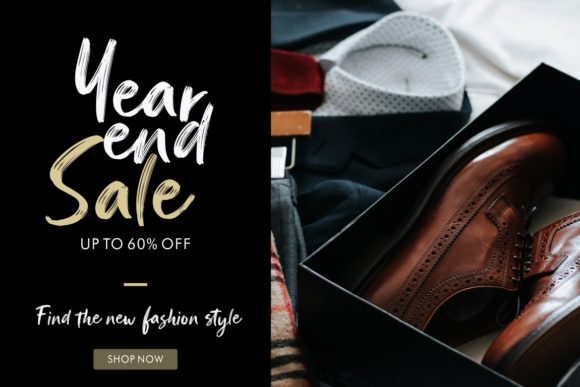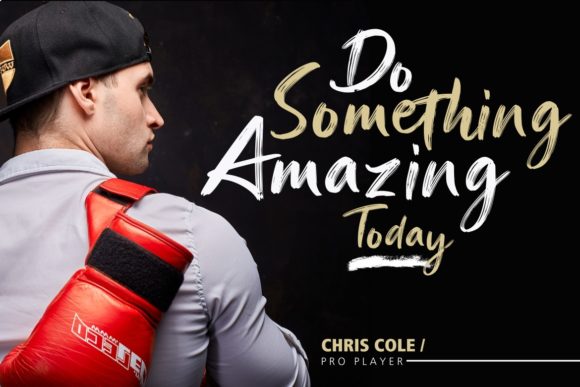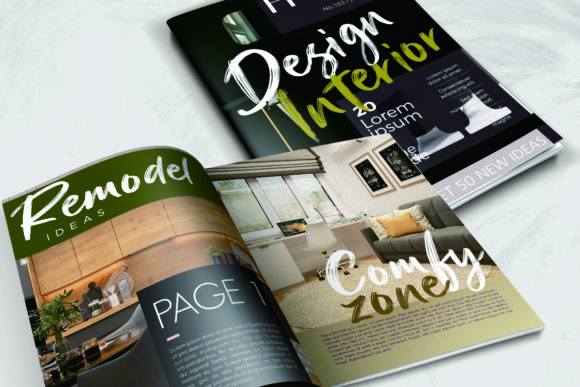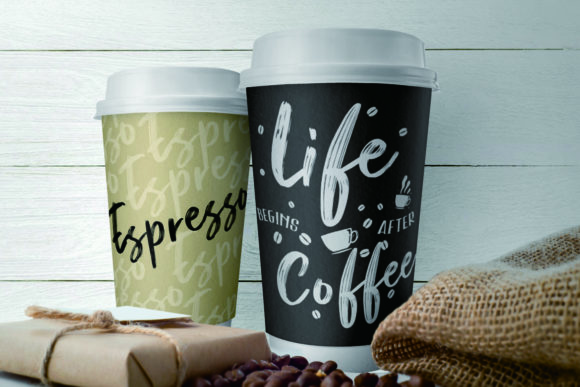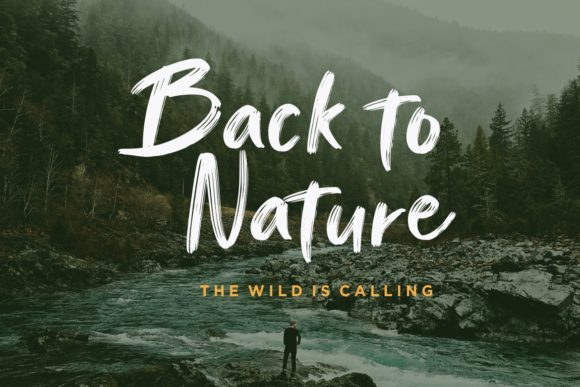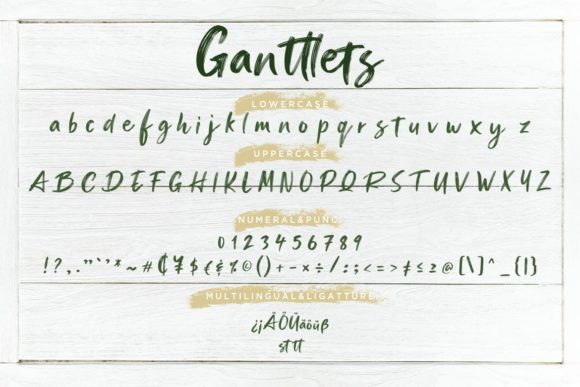
Ganttlets Font: The Ultimate Game-Changer for Designers and Crafters
In the world of design, fonts play a crucial role in making a project stand out from the crowd. With thousands of fonts available, it can be overwhelming to find the perfect one that captures the essence of your design. However, if you’re looking for a unique and eye-catching script, look no further than Ganttlets Font. Ganttlets is a one-of-a-kind script that will make any design project stand out from the crowd.
What is Ganttlets Font?
Ganttlets Font is a distinctive script font that is designed to add a touch of elegance and sophistication to any design project. With its flowing lines and intricate details, Ganttlets is perfect for designers and crafters who want to create something truly unique. Whether you’re working on a logo, branding project, or craft project, Ganttlets Font is sure to make a statement.
Key Features of Ganttlets Font
- Unique and Handwritten Style: Ganttlets Font boasts a one-of-a-kind, handwritten style that is sure to capture the attention of your audience.
- Elegant and Sophisticated: With its flowing lines and intricate details, Ganttlets Font adds a touch of elegance and sophistication to any design project.
- Highly Versatile: Ganttlets Font can be used for a wide range of design projects, from logos and branding to craft projects and more.
- Easy to Read and Write: Despite its intricate details, Ganttlets Font is surprisingly easy to read and write, making it perfect for body text and headlines.
Why Choose Ganttlets Font?
So, why choose Ganttlets Font over other fonts available? Here are just a few reasons why designers and crafters are falling in love with Ganttlets:
- Stand Out from the Crowd: With Ganttlets Font, you can be sure that your design project will stand out from the crowd. Its unique and handwritten style ensures that your project will be noticed.
- Add a Touch of Elegance: Ganttlets Font adds a touch of elegance and sophistication to any design project, making it perfect for high-end brands and luxury products.
- Perfect for Crafters: Ganttlets Font is also perfect for crafters who want to add a personal touch to their projects. Whether you’re working on a handmade card or a DIY craft project, Ganttlets Font is sure to impress.
How to Use Ganttlets Font
- Pair with Bold Fonts: Pair Ganttlets Font with bold fonts for a striking contrast that will make your design project pop.
- Use for Headlines and Body Text: Ganttlets Font is perfect for both headlines and body text, making it a versatile addition to any design project.
- Experiment with Colors: Ganttlets Font looks great in a variety of colors, so don’t be afraid to experiment and find the perfect hue for your design project.
In conclusion, Ganttlets Font is a one-of-a-kind script that is sure to make any design project stand out from the crowd. With its unique and handwritten style, elegant and sophisticated details, and high versatility, Ganttlets Font is perfect for designers and crafters who want to create something truly special. So why wait? Try Ganttlets Font today and see the difference it can make in your design projects!